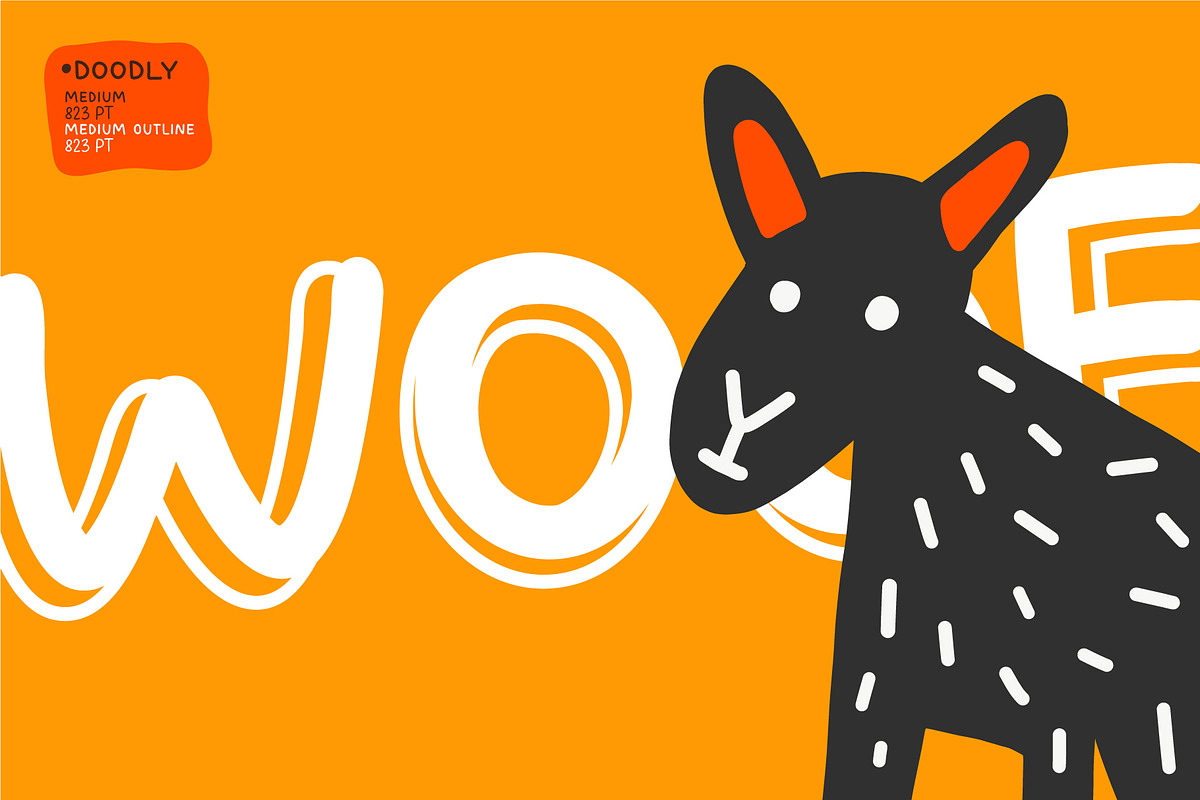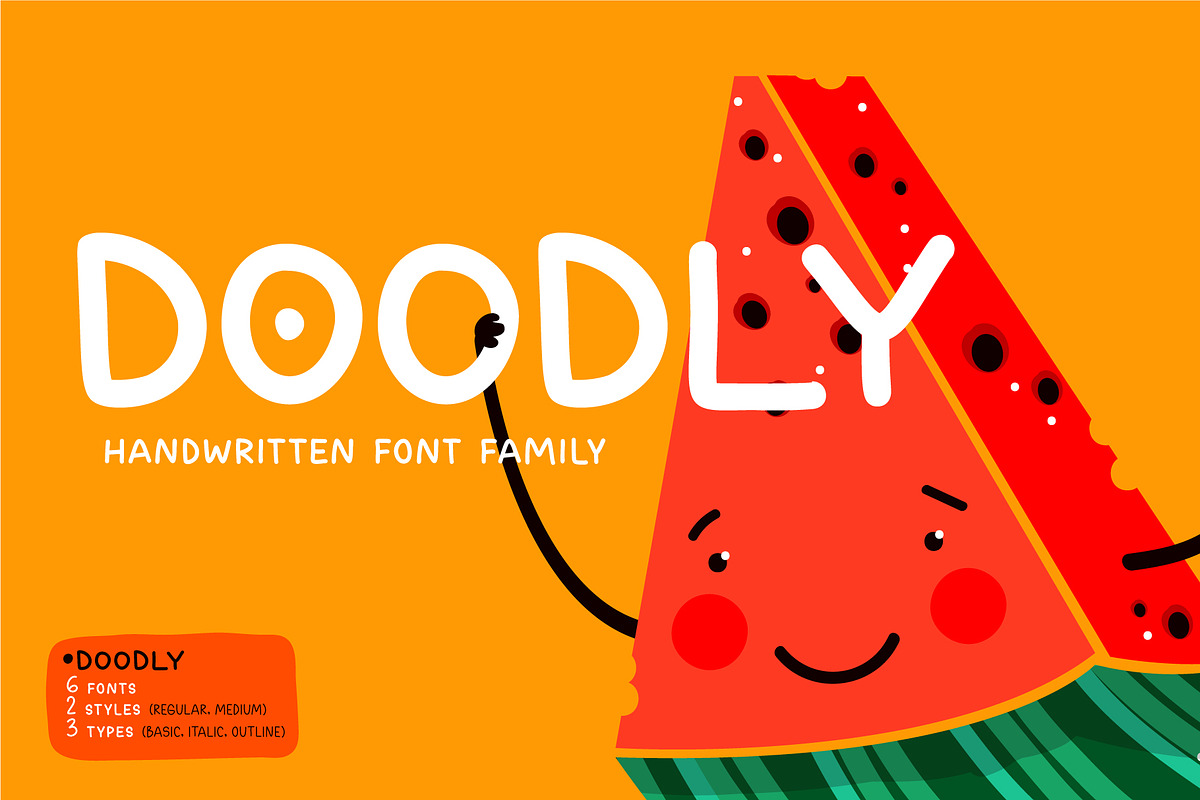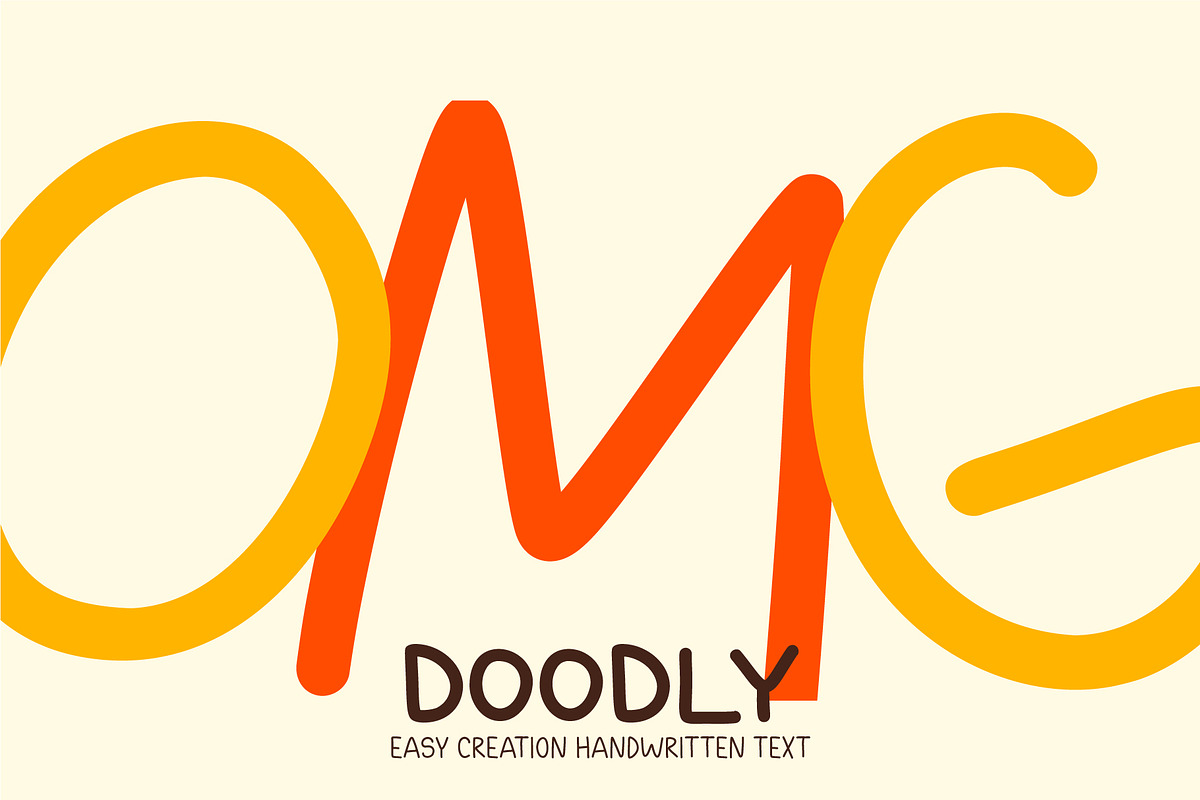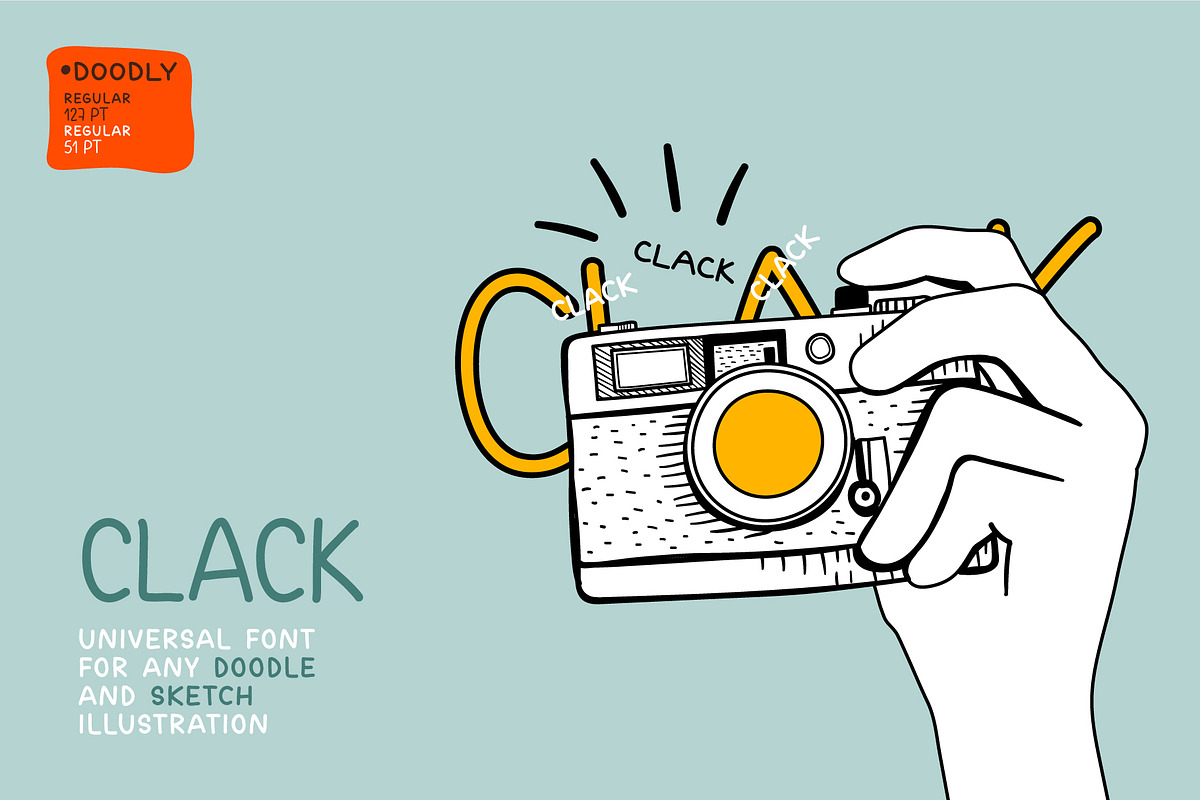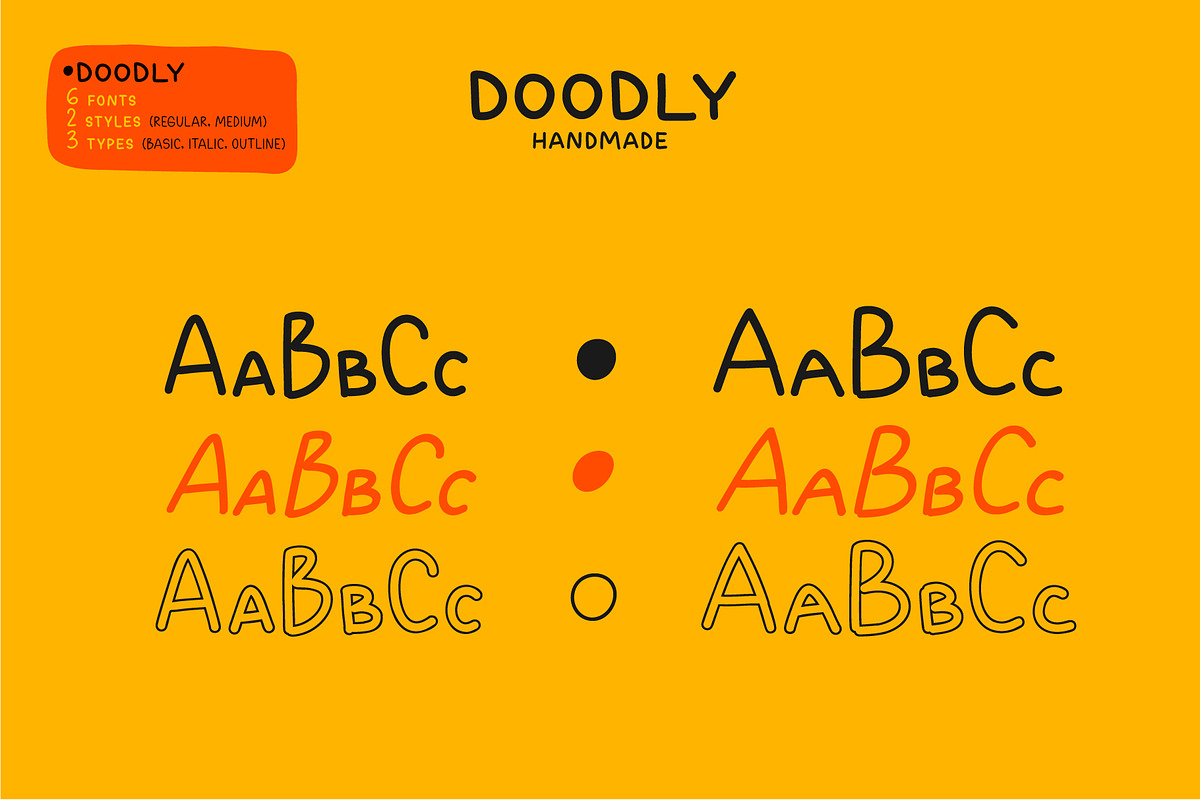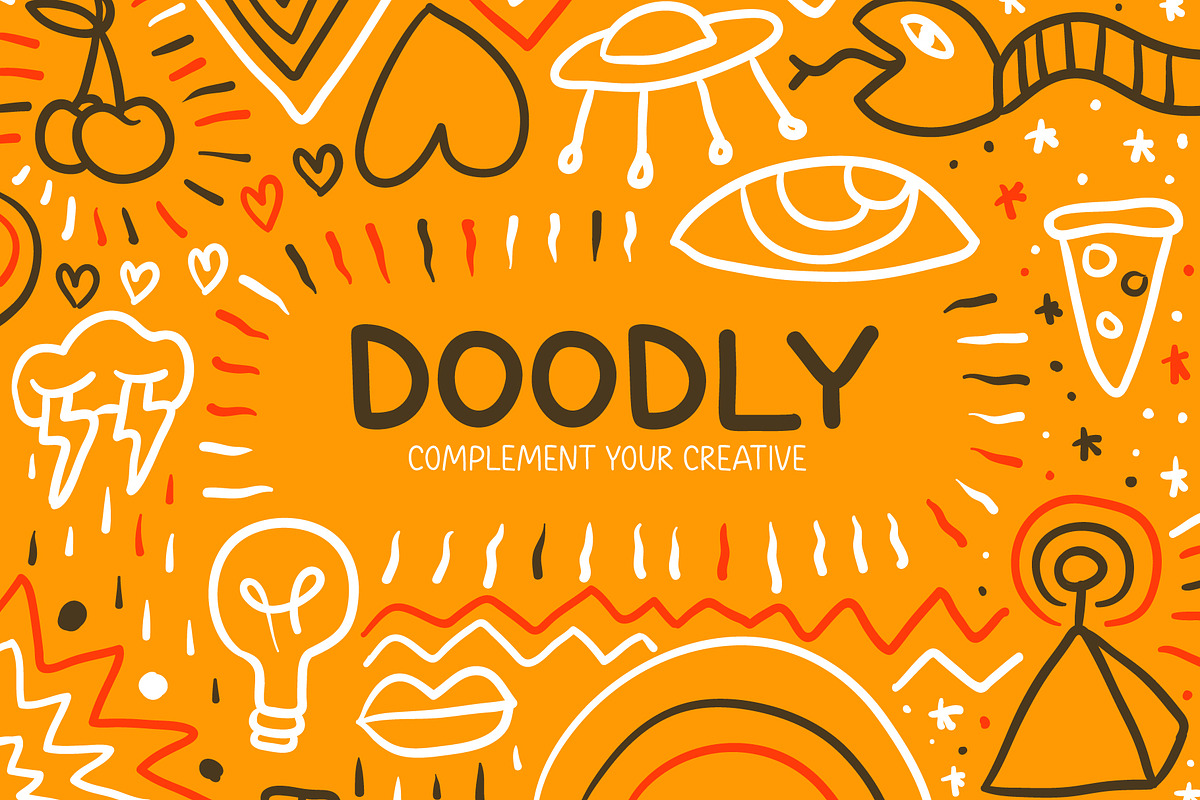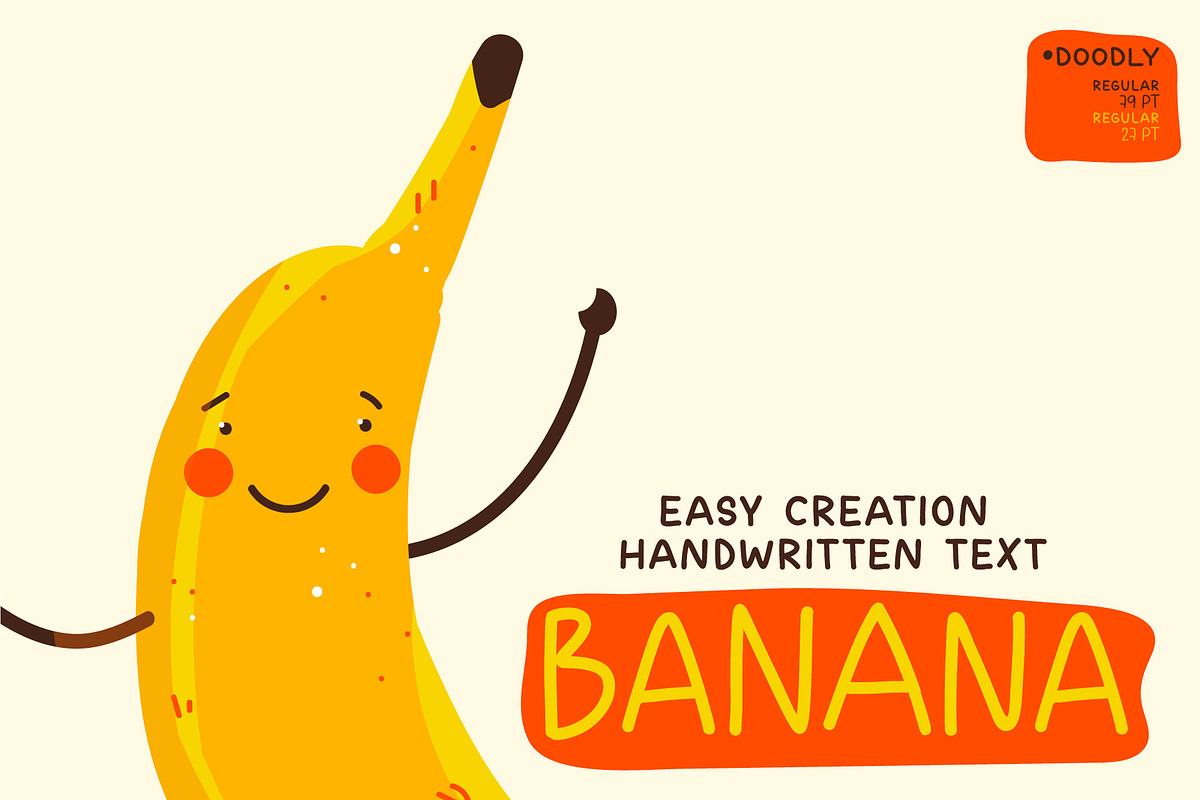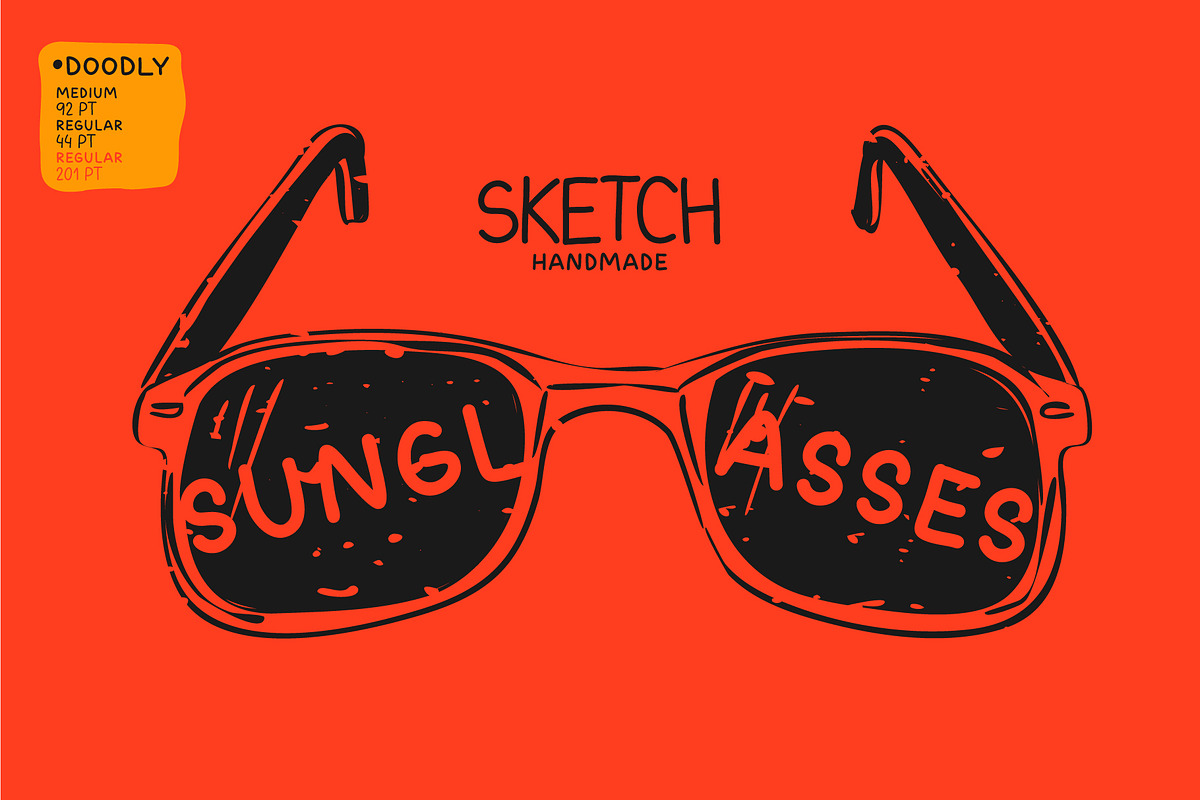
Doodly. Handwritten font family
Introducing a funny, playful doodle font with soft sloppy glyphs. Easily turn text into handwritten. Font family is cool for complementing a design with a doodle or sketch illustration, font does not have complex spelling of letters, therefore it is suitable for a children's audience and will complement a children's book, as well as fit into any design with a playful holiday theme, etc. Family has 2 types of fonts with different interchangeable letters (different only uppercase and lowercase, other glyphs are identical) - can be used as alternate's. In the family of 6 fonts are divided into 3 types: basic, italic and outline.
2 types of fonts with different interchangeable letters (different only uppercase and lowercase, other glyphs are identical) - Regular, Medium
3 type: Basic, Italic, Outline